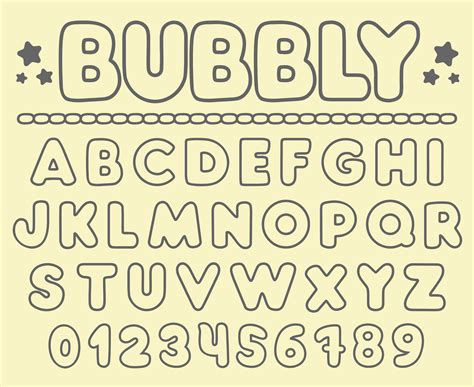
Best Bubble Writing Fonts for Fun & Creative Text
Hey there, **Readers**! Have you ever wanted to add a touch of whimsy and playfulness to your text? Maybe you're looking for a unique font to make your social media posts stand out or a fun way to personalize your invitations. If so, you've come to the right place. We're about to dive into the world of **best bubble writing fonts** and discover how they can transform your designs. As an expert in all things AI and SEO, I've analyzed countless fonts to uncover the most captivating and versatile bubble writing fonts that are perfect for adding a dose of creativity to your projects. Ready to unleash your inner artist? Let's get started!
What are Bubble Writing Fonts?
Bubble writing fonts, also known as "balloon" or "comic sans" fonts, are characterized by their rounded, playful, and often bubbly letterforms. They evoke a sense of childhood joy, fun, and whimsy. These fonts are often used in informal settings, particularly for children's books, greeting cards, invitations, and social media graphics. However, their versatility allows them to be incorporated into a wide range of designs, adding a touch of personality and creativity to anything from branding to logos.
Why Use Bubble Writing Fonts?
Bubble writing fonts offer a unique blend of aesthetic appeal and functionality. They're not just pretty; they have a purpose. Here's why you might want to consider using them in your projects:
Unleash Creativity and Playfulness
Bubble writing fonts have a playful and whimsical nature that can instantly inject energy and personality into your designs. Whether you're creating birthday invitations, designing social media graphics, or adding a fun touch to your website, these fonts can help you capture a sense of joy and lightheartedness.
Enhance Visual Appeal
The rounded shapes and unique letterforms of bubble writing fonts can add a touch of visual interest to your designs. They create a sense of movement and dynamism, making text more engaging and eye-catching. These fonts can help your designs stand out from the crowd and make a lasting impression.
Increase Brand Recognition
When used consistently, bubble writing fonts can become a recognizable element of your brand identity. They can help you create a distinct style that resonates with your target audience. Think of how the iconic bubble font of the classic "Looney Tunes" cartoon has become synonymous with the brand.
Popular Bubble Writing Fonts
The world of bubble writing fonts is filled with endless possibilities. Let's explore some of the most popular options that are perfect for a variety of projects.
Comic Sans MS
Comic Sans MS is a very well-known bubble font that has gained popularity for its playful and informal style. It's often used for children's books, school projects, and casual designs. The font is both charming and recognizable, but it's important to use it with caution, as some designers consider it too whimsical for professional settings.
BubleGum
BubleGum is a delightful bubble writing font that captures the essence of playful joy. It's characterized by its cheerful, bubbly letterforms and its ability to add a touch of sweetness to any design. BubleGum is ideal for creating birthday cards, invitations, and other fun projects that need a bit of extra whimsy.
Chalkboard
Chalkboard is a unique bubble writing font that embodies the charm of a vintage chalkboard. Its slightly irregular letterforms and rustic aesthetic create a nostalgic and handmade feel. Chalkboard is an excellent choice for creating invitations, signage, or any design that requires a touch of old-world charm.
Crazy Talk
Crazy Talk is a fun and expressive bubble writing font that adds a touch of energy and excitement to your designs. Its bouncy letterforms and playful curves make it perfect for creating eye-catching posters, social media graphics, or any design that needs a bold and energetic statement.
Where to Find Bubble Writing Fonts
Ready to unleash your creativity with bubble writing fonts? There are plenty of places where you can find the perfect font to match your project. Here are some valuable resources:
Free Font Websites
Free font websites offer a diverse collection of bubble writing fonts, many of which are available for personal and commercial use. Some popular options include:
- Font Squirrel: This website is known for its curated selection of high-quality free fonts, including a variety of bubble fonts.
- Google Fonts: Google Fonts is a fantastic resource for finding free fonts that are compatible with web design. You can browse their collection for bubble writing fonts that suit your style.
- 1001 Free Fonts: This website offers a vast library of free fonts, including a wide range of bubble writing fonts. You can search by category, popularity, or keyword to find the perfect font.
Paid Font Libraries
Paid font libraries offer a broader range of high-quality bubble writing fonts with premium features and licensing options. Some popular choices include:
So there you have it, **Readers**! We've delved into the fascinating world of bubble writing fonts and discovered their unique ability to add a touch of fun, whimsy, and personality to your designs. From classic choices like Comic Sans to more modern and playful options, we've explored the variety that these fonts offer. Remember, choosing the right bubble writing font can make all the difference in creating a design that truly stands out. Now, it's your turn to unleash your creativity and explore the endless possibilities of these charming fonts. And if you're looking for more design inspiration, be sure to check out other articles on our site, where we delve into everything from typography to web design. Happy creating!